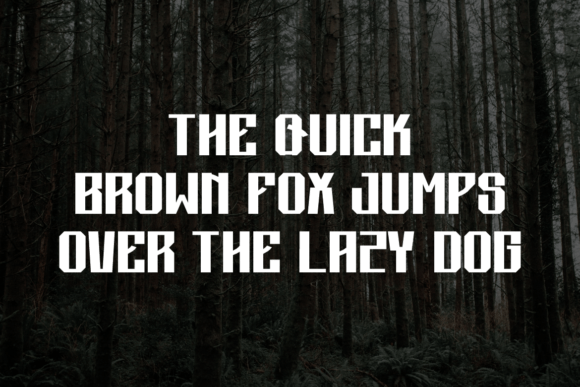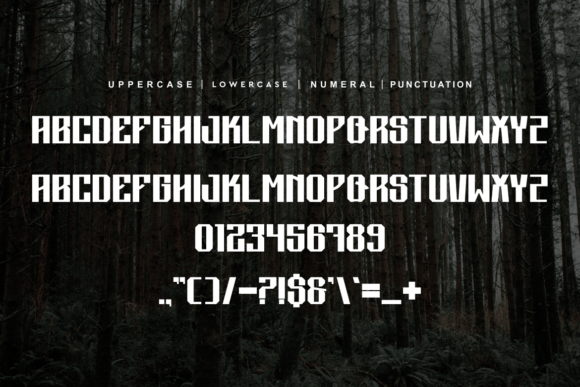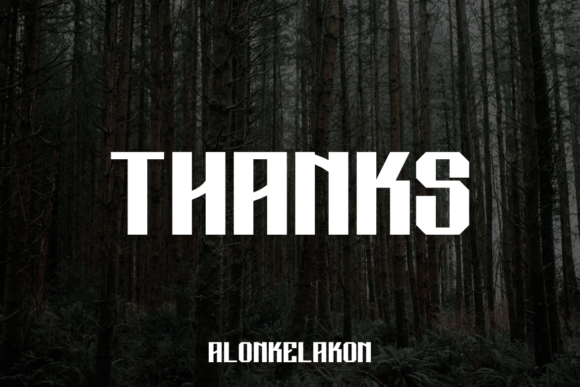
Introducing Fentura Groovy Font: Elevate Your Designs with Timeless Charm
In the world of design, fonts play a pivotal role in conveying messages, evoking emotions, and capturing attention. Among the myriad of fonts available, Fentura Groovy Font stands out with its distinctive style, versatility, and elegance. Crafted with meticulous attention to detail, this font is designed to breathe life into your creations, imparting them with a timeless charm that resonates across various design contexts.
Unleash Creativity Across Multiple Platforms
Fentura Groovy Font is not just a typeface; it’s a creative tool that adapts seamlessly to a wide array of design projects. Whether you’re working on:
- Dynamic Movie Scenes: Add a cinematic flair to your title sequences, making them more engaging and memorable.
- Eye-catching Posters: From gig posters to billboards, this font ensures your message stands out in a crowd.
- Evocative Album Covers: Give your music projects a professional edge with a cover that captures the essence of the music.
- Gracefully Aged Labels: Add a touch of vintage charm to your product labels, making them unique and appealing.
- Exquisitely Detailed Logos: Create a lasting impression with a logo that embodies your brand’s personality and values.
Elegance and Versatility in Every Detail
Fentura Groovy Font is more than just aesthetically pleasing; it’s also incredibly versatile. Its elegant design ensures that it can be used in both grand, cinematic projects and more intimate, creative endeavors. This flexibility makes it an invaluable asset for designers looking to expand their creative horizons and explore new design opportunities.
Capturing Attention with Unique Essence
In today’s fast-paced digital landscape, capturing your audience’s attention is more challenging than ever. Fentura Groovy Font offers a unique solution to this problem. Its distinctive style and charm can add a fresh appeal to your designs, making them stand out in a crowded marketplace. Whether you’re aiming to evoke a sense of nostalgia, convey elegance, or simply make a bold statement, this font provides the perfect canvas for your creative expression.
Why Choose Fentura Groovy Font?
Choosing Fentura Groovy Font for your design projects comes with numerous benefits:
- Timeless Appeal: Its classic design ensures that your projects remain relevant and stylish for years to come.
- Versatility: Suitable for a wide range of projects, from cinematic to intimate designs.
- Unique Style: Stand out from the crowd with a font that adds a touch of elegance and charm to your designs.
Fentura Groovy Font is more than just a typeface; it’s a key to unlocking a world of creative possibilities. Its distinctive style, combined with its versatility and elegance, makes it an essential tool for designers looking to leave a lasting impression. Whether you’re working on a grand cinematic project or an intimate gig poster, this font is sure to add a splash of charm to your design canvas. Discover the unique essence of Fentura Groovy Font and elevate your designs to new heights of creativity and sophistication.